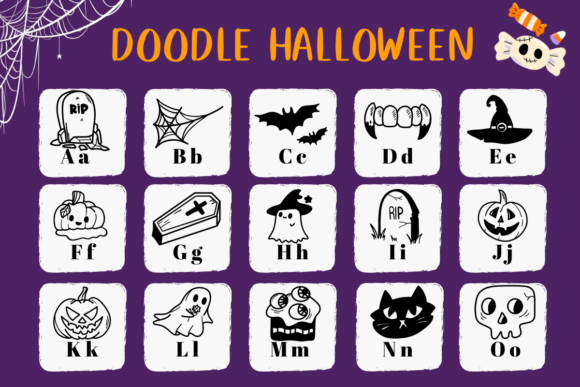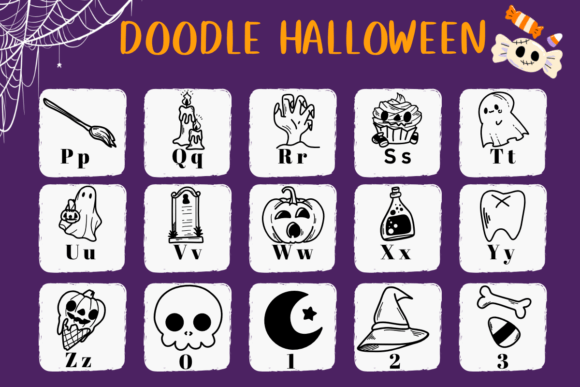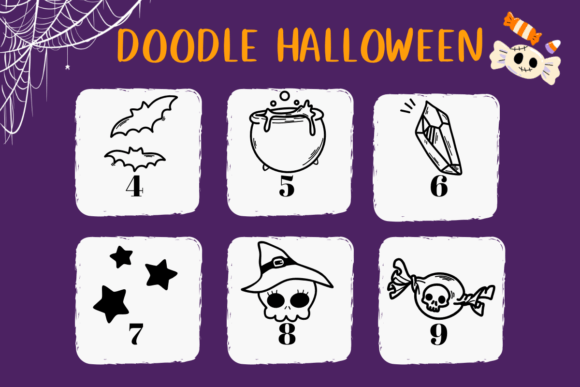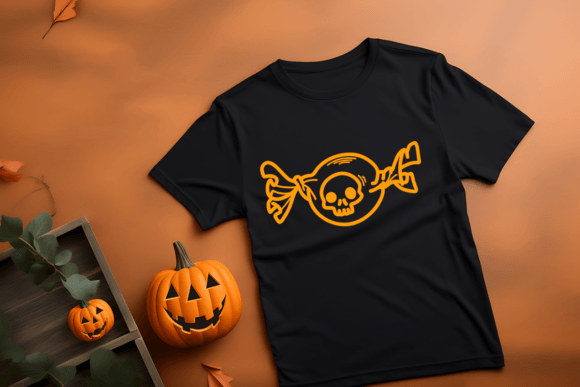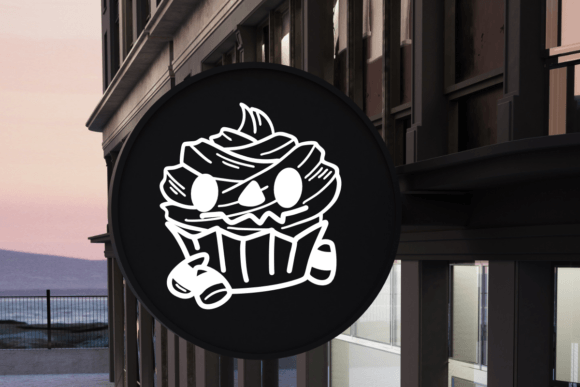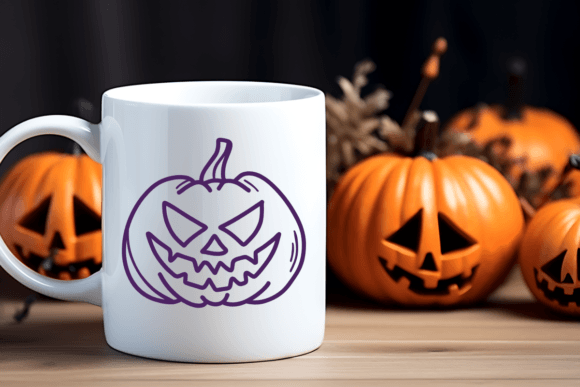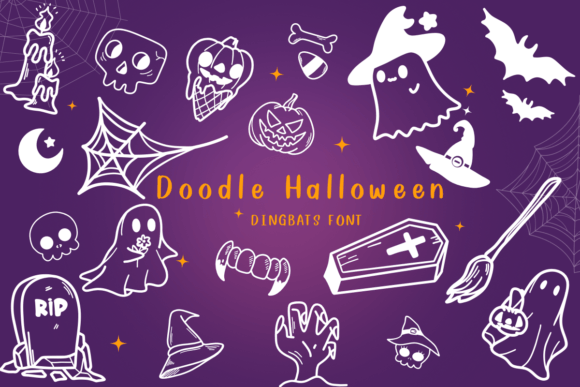
Doodle Halloween Font: Add a Spooky Touch to Your Creative Projects
Are you looking for a unique and creative way to add a spooky touch to your Halloween-themed projects? Look no further than the Doodle Halloween Font! This dingbats font is specifically designed with a sketch style theme that’s perfect for creating eye-catching and festive designs. In this article, we’ll explore the features and benefits of the Doodle Halloween Font and how it can enhance your creative projects.
What is Doodle Halloween Font?
Doodle Halloween Font is a dingbats font that features a sketch-style theme with a Halloween twist. The font is designed to resemble hand-drawn doodles, giving it a playful and whimsical feel. The font includes a wide range of characters, symbols, and icons that are perfect for creating Halloween-themed designs, such as pumpkins, ghosts, bats, and more.
Features of Doodle Halloween Font
- Sketch-style theme: The font features a unique sketch-style theme that gives it a hand-drawn look and feel.
- Dingbats font: The font is a dingbats font, which means it includes a wide range of symbols, icons, and characters.
- Halloween-themed: The font is specifically designed with a Halloween theme, making it perfect for creating spooky and festive designs.
- Playful and whimsical: The font has a playful and whimsical feel, making it perfect for creating designs that are fun and eye-catching.
Benefits of Using Doodle Halloween Font
There are many benefits to using the Doodle Halloween Font in your creative projects. Here are just a few:
- Add a spooky touch: The font is perfect for adding a spooky touch to your Halloween-themed designs.
- Enhance your designs: The font’s unique sketch-style theme and Halloween-themed characters can enhance your designs and make them more eye-catching.
- Perfect for DIY projects: The font is perfect for DIY projects, such as crafting, scrapbooking, and more.
Creative Ways to Use Doodle Halloween Font
The Doodle Halloween Font is a versatile font that can be used in a wide range of creative projects. Here are just a few ideas to get you started:
- Wedding invitations: Use the font to create spooky and festive wedding invitations that will set the tone for a Halloween-themed wedding.
- DIY crafts: Use the font to create DIY crafts, such as Halloween decorations, gift tags, and more.
- Logos and branding: Use the font to create logos and branding materials for your business or organization.
- Social media graphics: Use the font to create spooky and festive social media graphics that will help you stand out from the crowd.
Tips for Using Doodle Halloween Font
Here are a few tips for using the Doodle Halloween Font in your creative projects:
- Experiment with different colors: The font looks great in a wide range of colors, so don’t be afraid to experiment and find the perfect color scheme for your design.
- Mix and match characters: The font includes a wide range of characters, so don’t be afraid to mix and match them to create unique and interesting designs.
- Use it with other fonts: The font looks great when paired with other fonts, so don’t be afraid to experiment and find the perfect font combination for your design.
The Doodle Halloween Font is a unique and creative font that’s perfect for adding a spooky touch to your Halloween-themed designs. With its sketch-style theme and Halloween-themed characters, this font is sure to enhance your creative projects and make them more eye-catching. Whether you’re a designer, crafter, or DIY enthusiast, the Doodle Halloween Font is a must-have font for your creative toolkit.